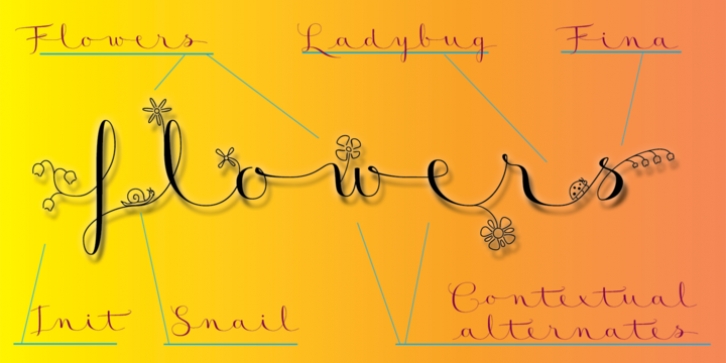
Badinerie was designed by Jean Boyault and published by JBFoundry. Badinerie contains 4 styles and family package options.
Badinerie is a cursive font family with decorative variations.
You can choose simplicity, swash, love or flowers.
· Badinerie Regular
· Badinerie Swash
· Badinerie Love
· Badinerie Flowers